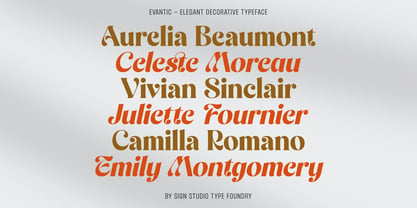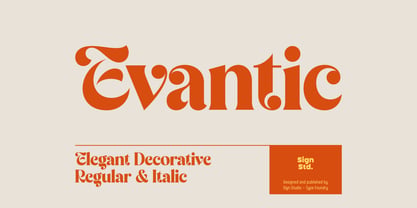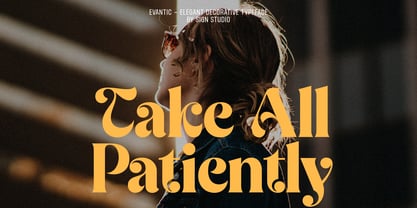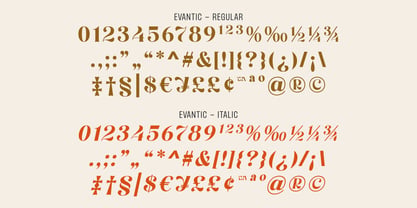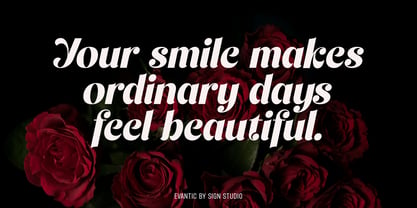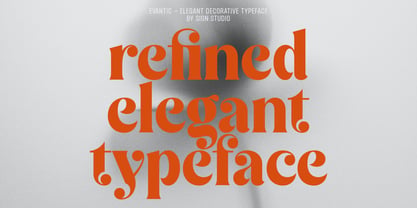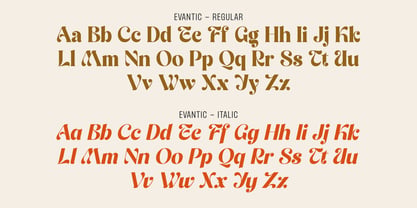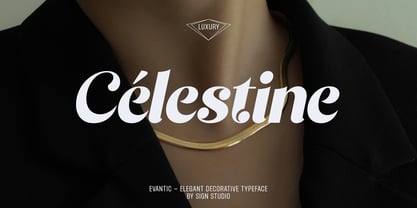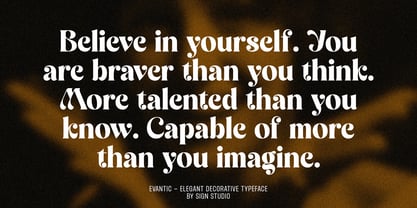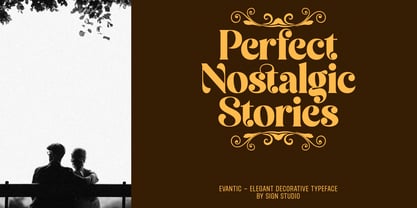
Evantic
by Sign Studio
The Evantic Font Family was designed by Sugi Yanto and published by Sign Studio. Evantic contains 2 styles and family package options. More about this family
Evantic is an elegant serif typeface designed to bring a refined and timeless atmosphere to modern design. With its graceful curves, balanced proportions, and stylish details, Evantic delivers a sophisticated look that feels both classic and contemporary. The typeface is carefully crafted to create a beautiful rhythm in text while maintaining strong character in headlines and branding. Its elegant shapes and subtle contrast make it perfect for projects that require a touch of luxury and femininity. Evantic works beautifully for branding, wedding designs, editorial layouts, and high-end product packaging. Whether used for logos, titles, or social media visuals, Evantic adds a sense of charm, grace, and personality to every composition. Evantic is designed to help designers create refined, stylish, and memorable visual identities.
Designers: Sugi Yanto
Foundry: Sign Studio